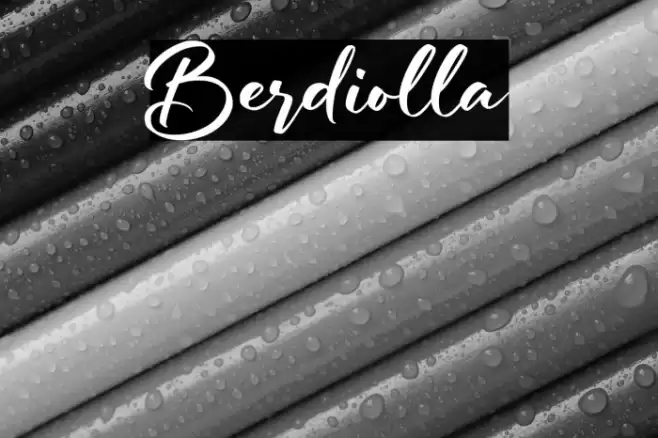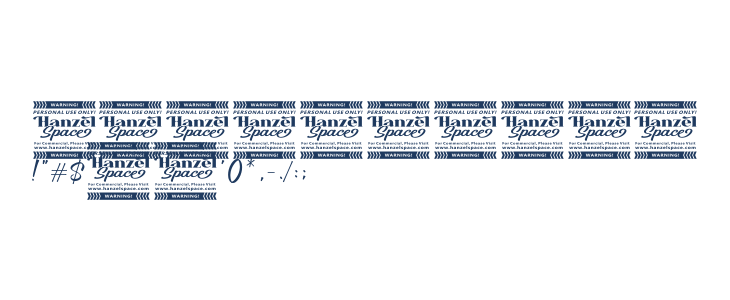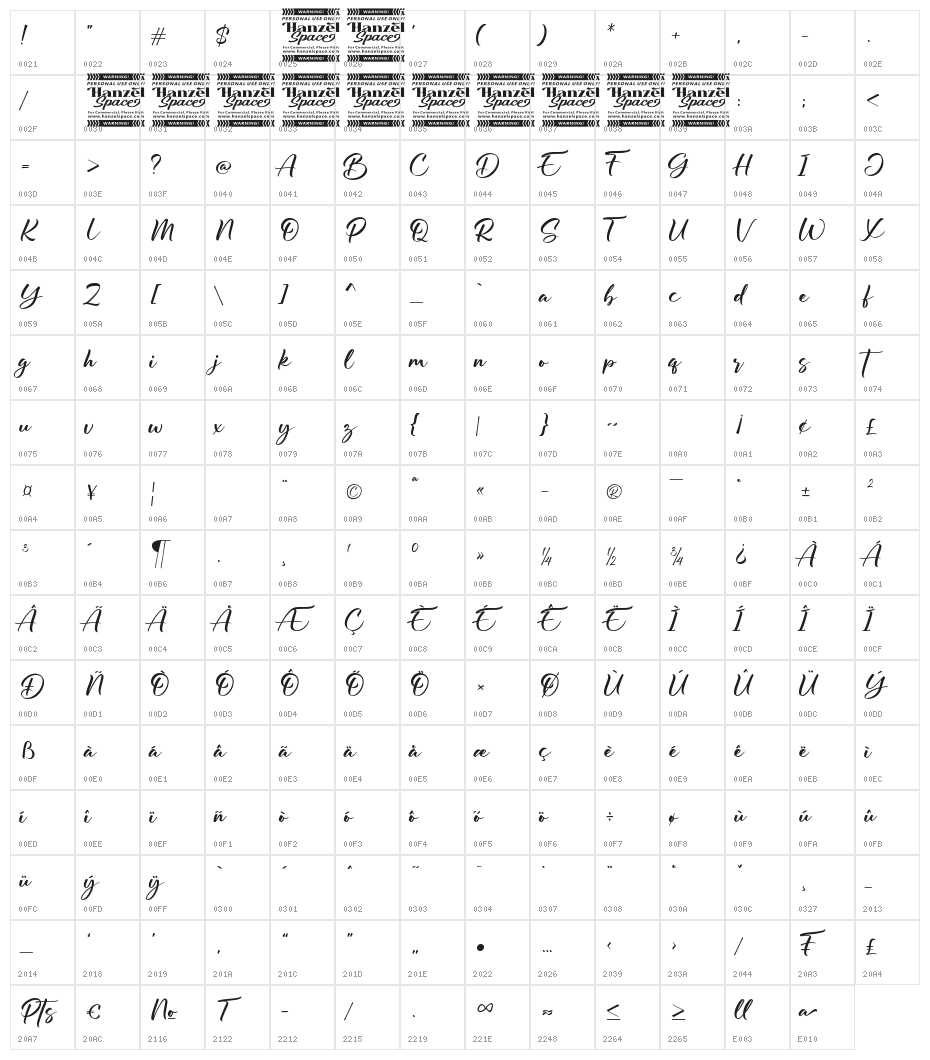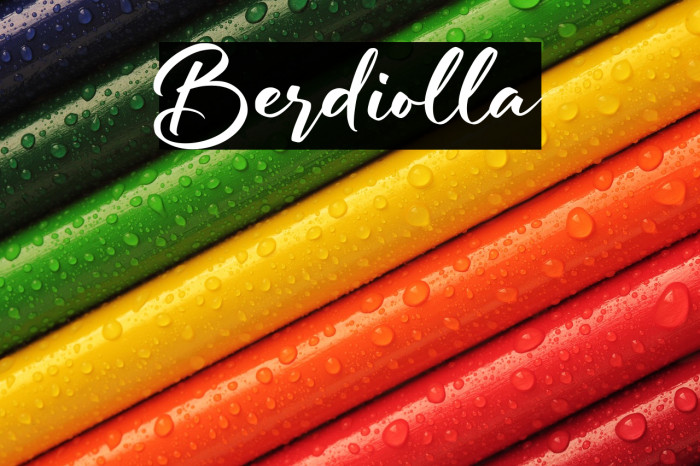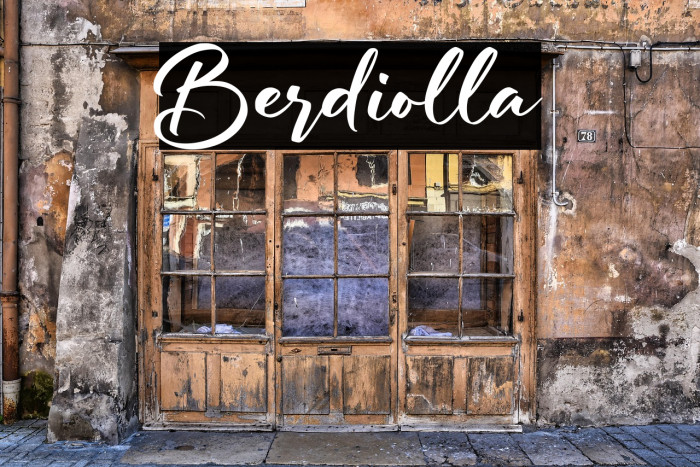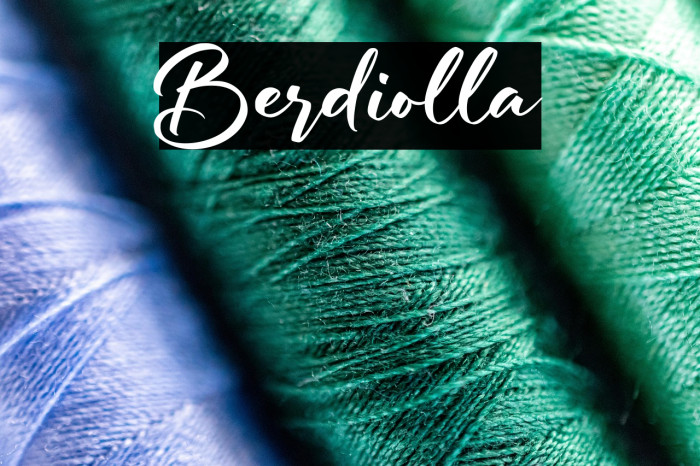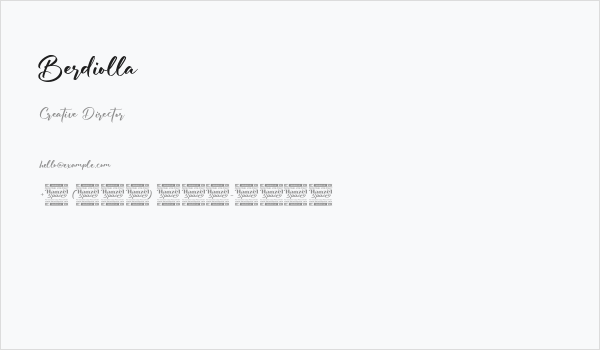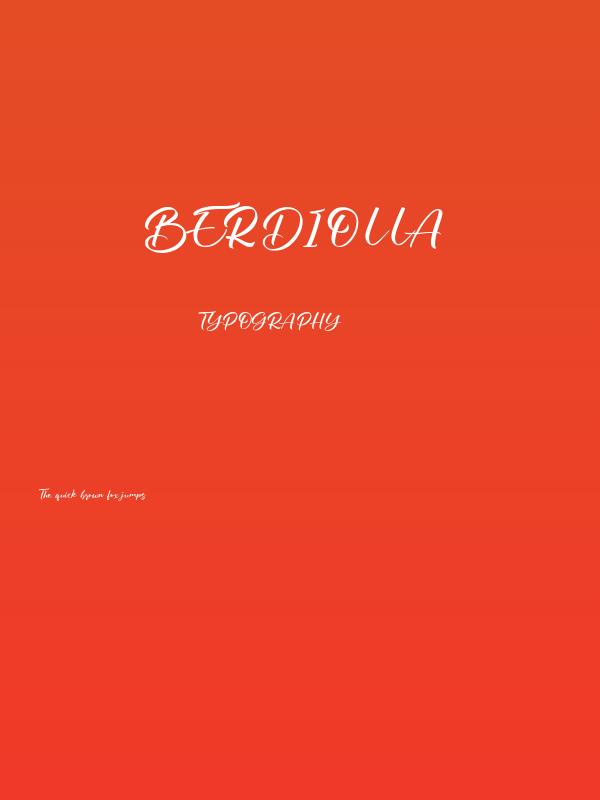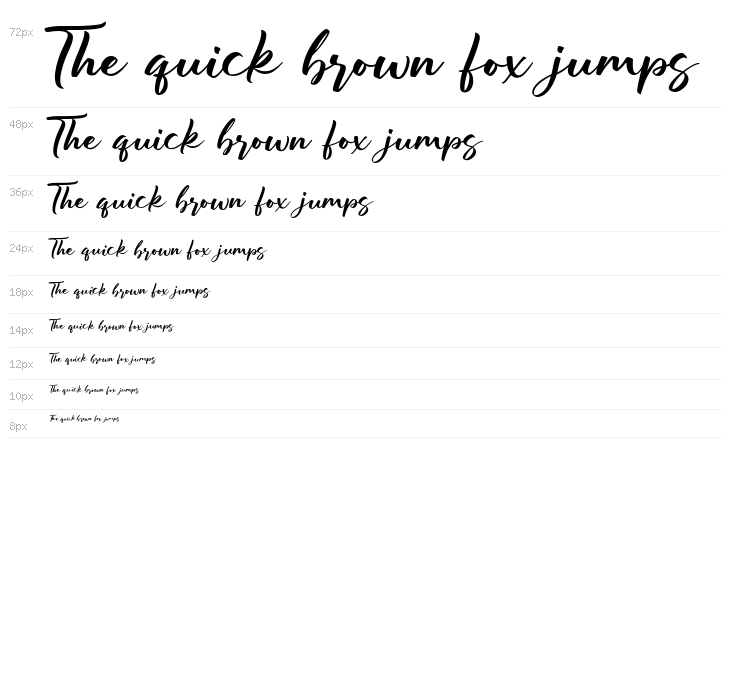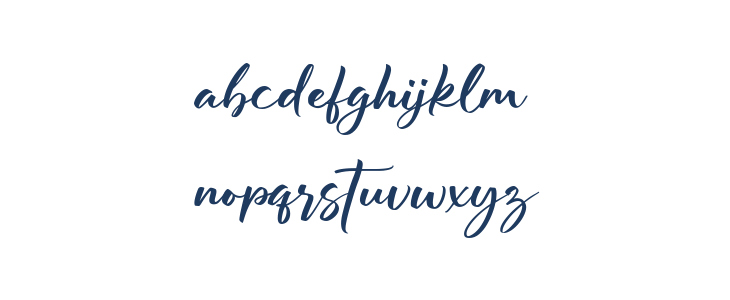
Berdiolla Font
Berdiolla Description
This font features an elegant, flowing script style that exudes a sense of sophistication and grace. The uppercase letters are characterized by their sweeping curves and intricate loops, while the lowercase letters maintain a consistent fluidity that complements the overall design. The font's strokes vary in thickness, providing a dynamic contrast that enhances its readability and visual appeal. The special characters are designed with the same attention to detail, ensuring a cohesive look across all elements. This font is perfect for projects that require a touch of elegance and style.
A graceful and sophisticated script font with dynamic contrast from Uncategorized fonts.
- Proposed Projects: Ideal for wedding invitations, branding, greeting cards, and elegant packaging designs.
- Overall Style: Elegant
- Use Case: Logos, Invitations, Branding